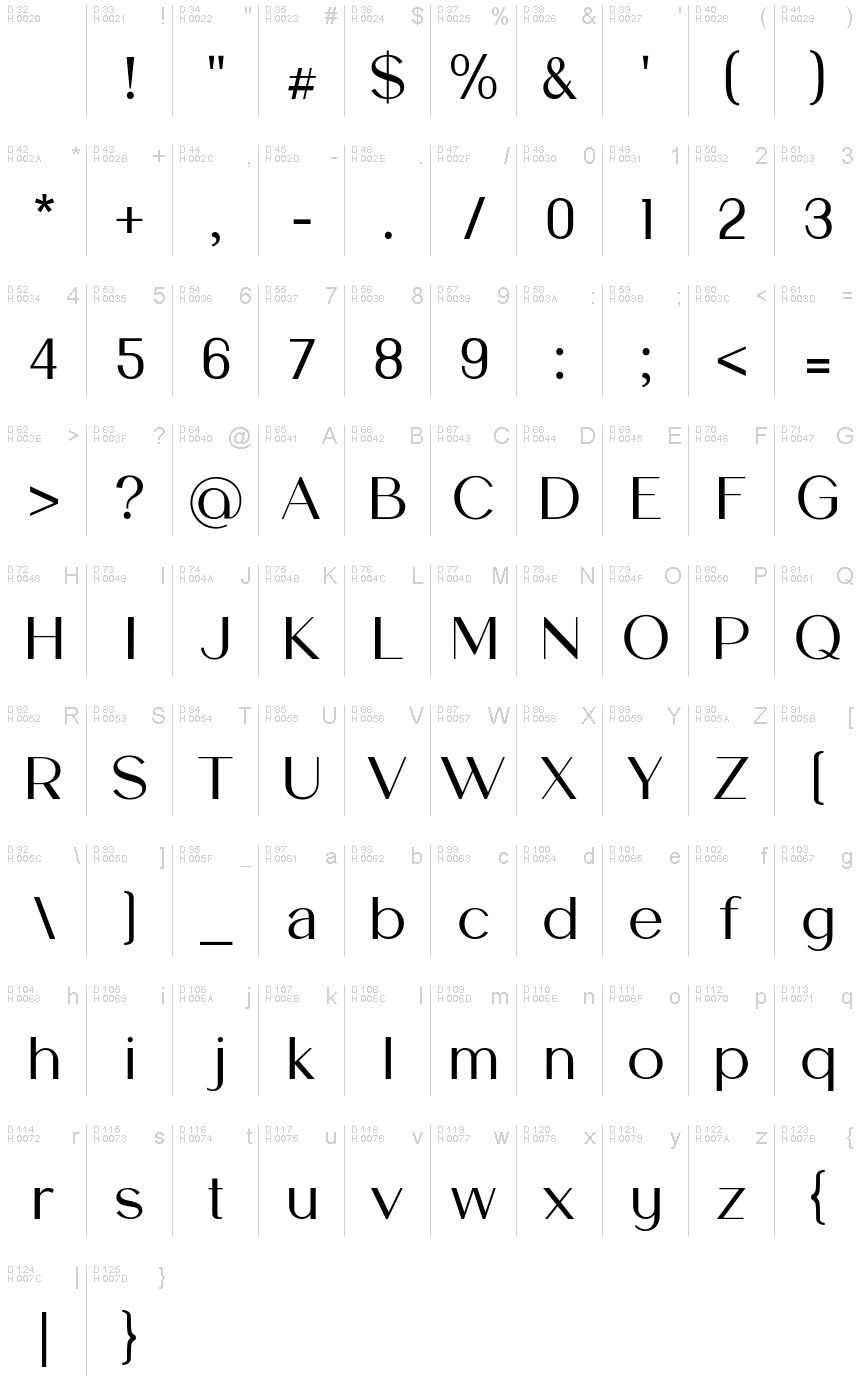
HeadstockSans
Headstock Sans, a creation by UI Creative, is a captivating sans-serif font that exudes a harmonious balance of modern sophistication and timeless elegance. Its clean lines and subtle curves evoke a sense of refined minimalism, making it an alluring choice for a wide range of design applications. The font's well-proportioned letterforms and carefully-considered kerning lend a cohesive, visually-appealing aesthetic, effortlessly conveying a sense of professionalism and sophistication.
Headstock Sans's versatility shines through its ability to adapt to diverse design settings. Its legible and versatile nature makes it an excellent selection for branding, editorial layouts, and digital interfaces, where its clarity and legibility can be fully appreciated. Additionally, the font's refined elegance positions it as a compelling option for high-end luxury projects, elevating the overall visual appeal and lending an air of sophistication to the final design.